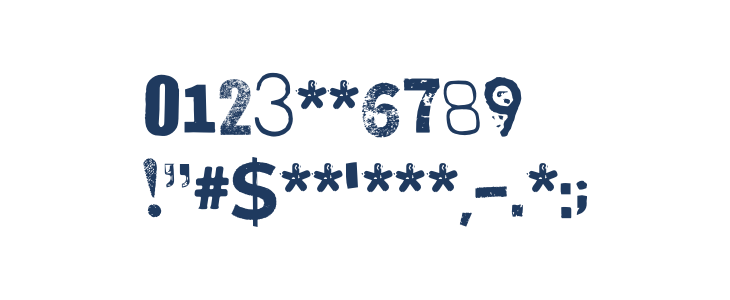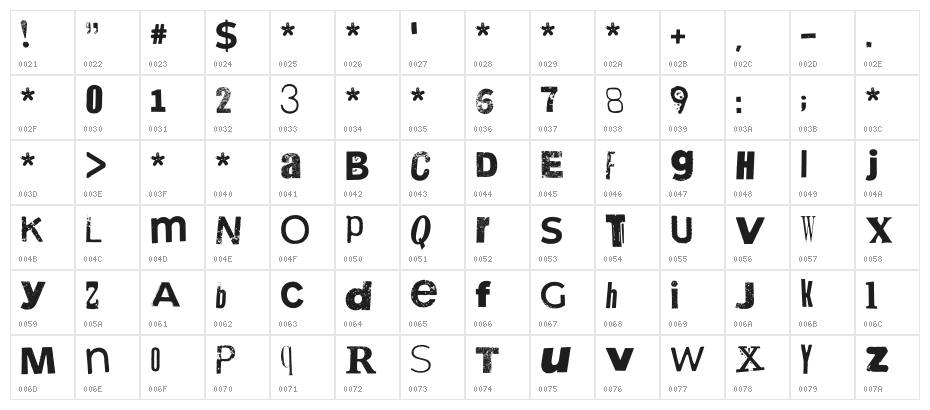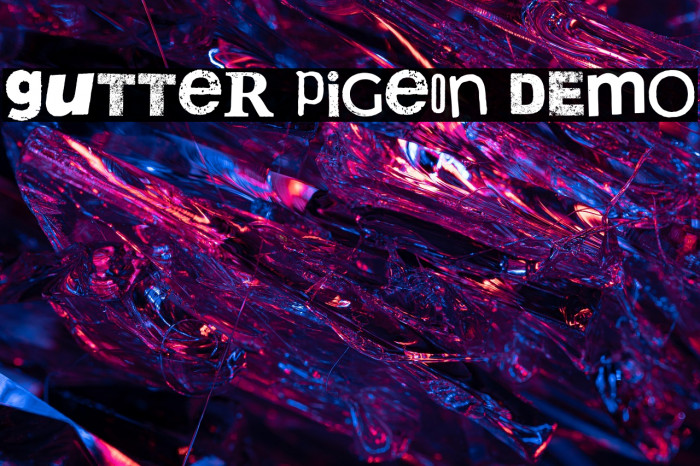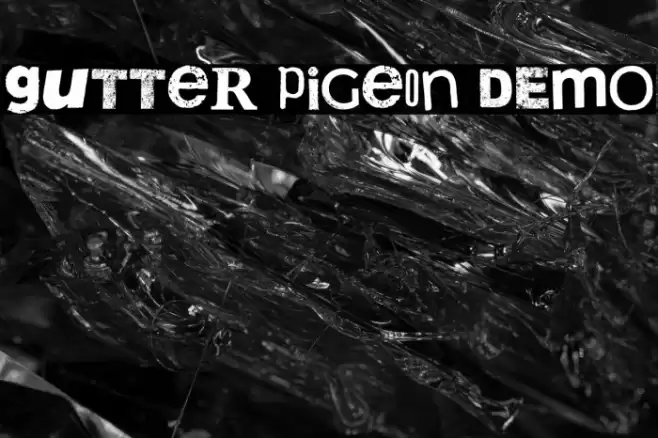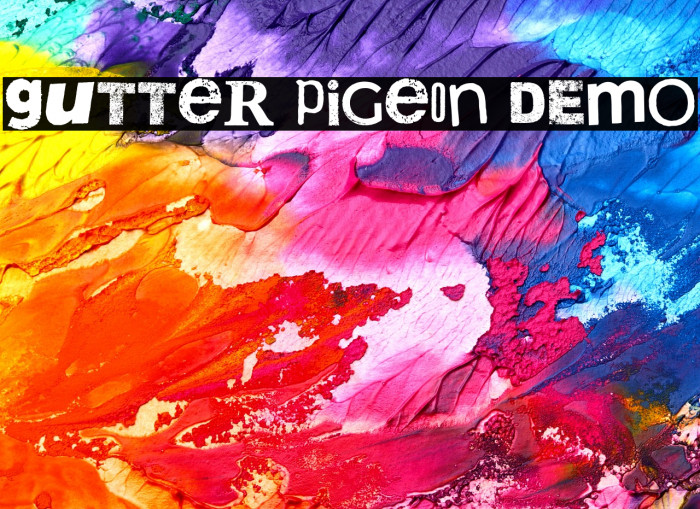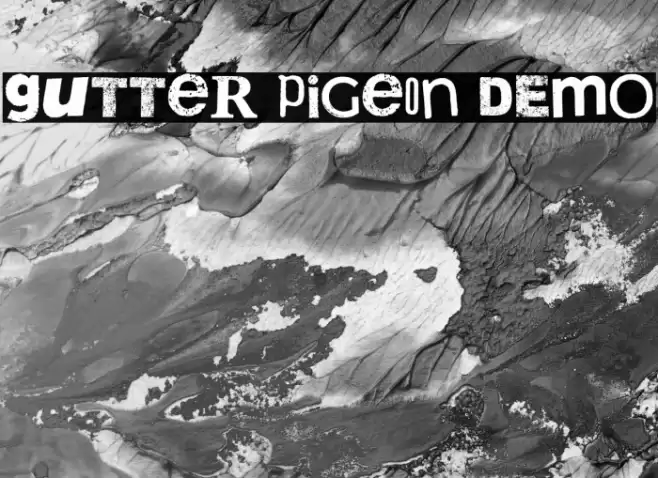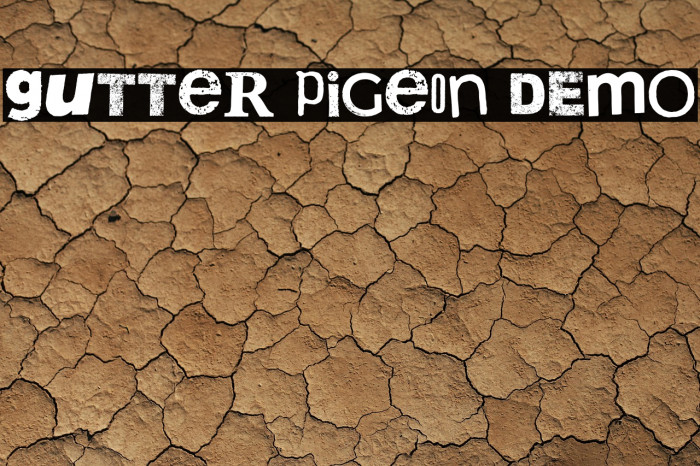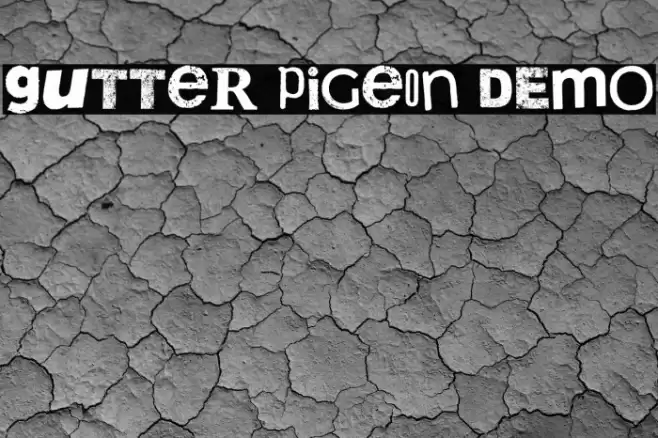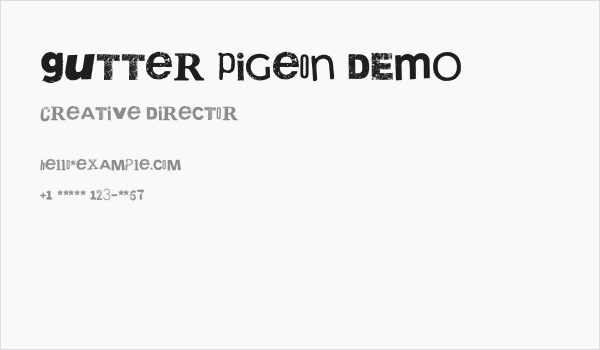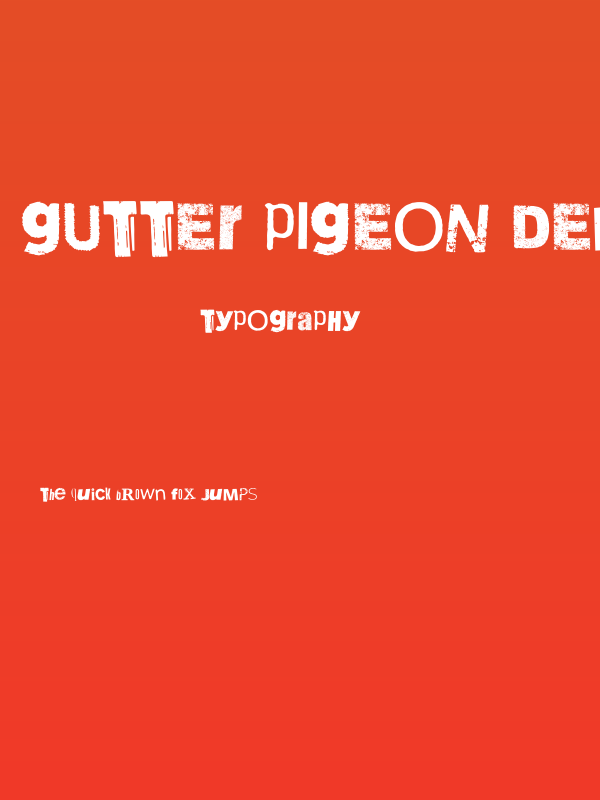
Gutter Pigeon DEMO Font
Gutter Pigeon DEMO Description
This font features a distressed, grunge style with a bold and impactful appearance. Each character is uniquely textured, giving the impression of wear and tear, reminiscent of urban street art or vintage posters. The letters vary in width and height, adding to the chaotic and dynamic feel. The uppercase and lowercase letters are distinct, with some characters appearing more condensed while others are wider. Numbers and special characters maintain the same rugged aesthetic, making them suitable for attention-grabbing designs. The overall style is both edgy and artistic, perfect for projects that require a bold statement.
| Overall Style | Grunge, Urban, Artistic |
| Proposed Projects | Ideal for album covers, posters, streetwear branding, and edgy graphic designs. |